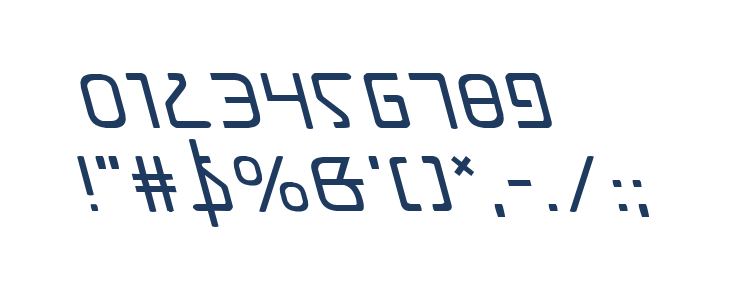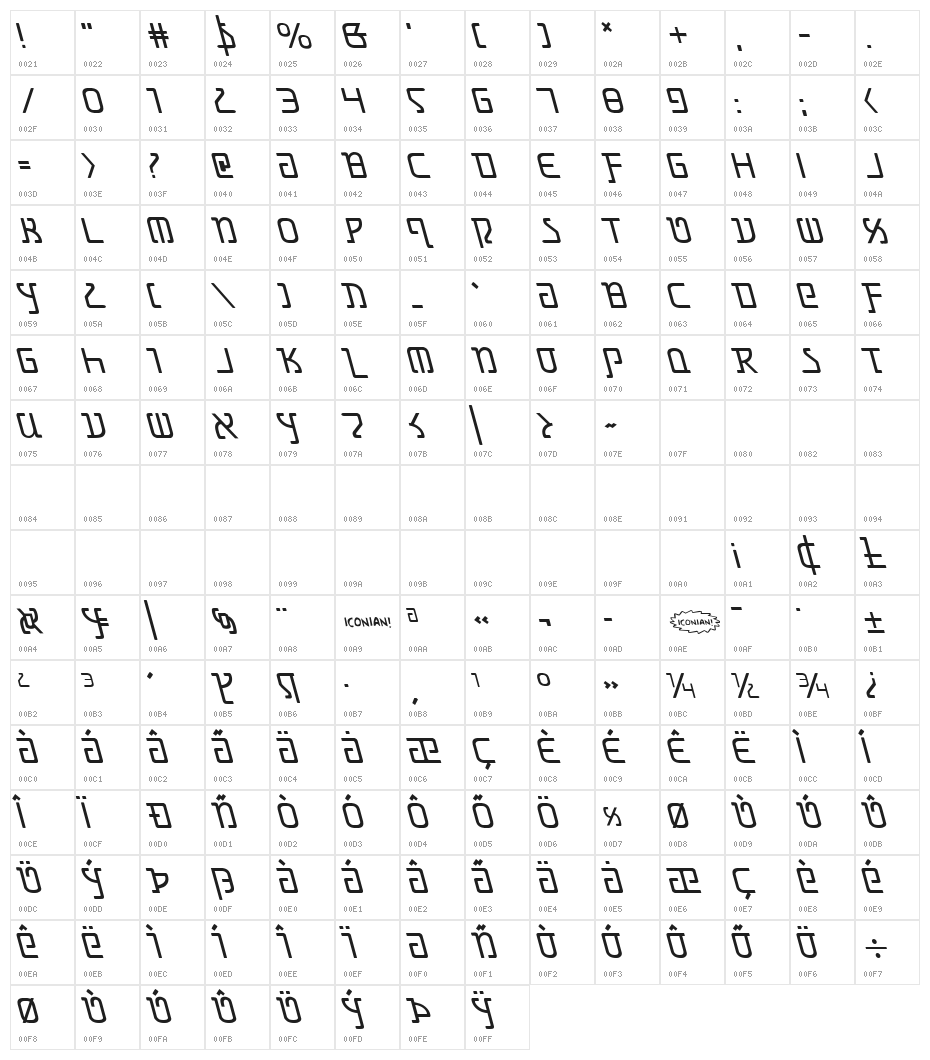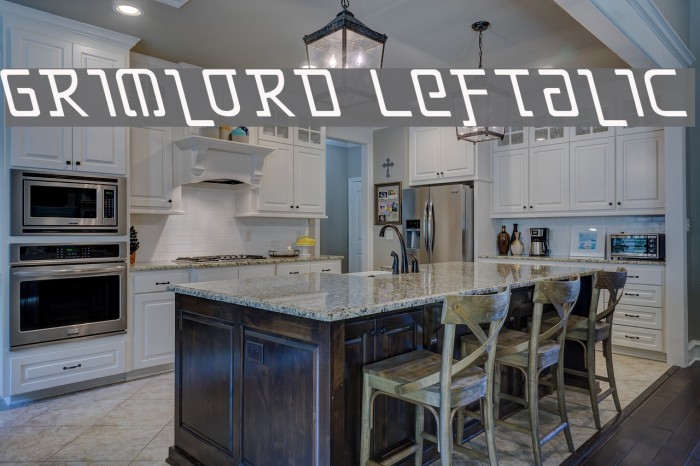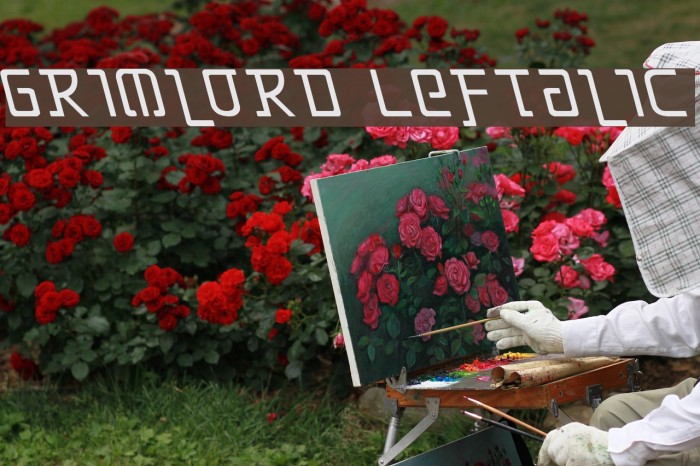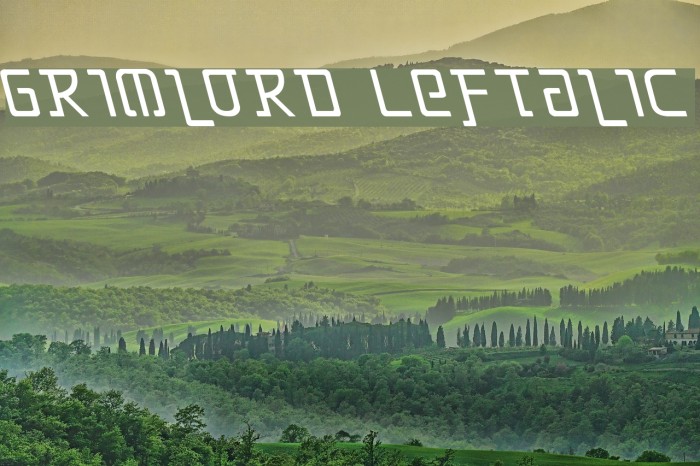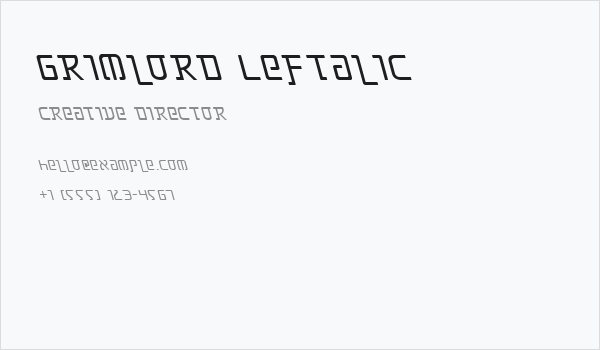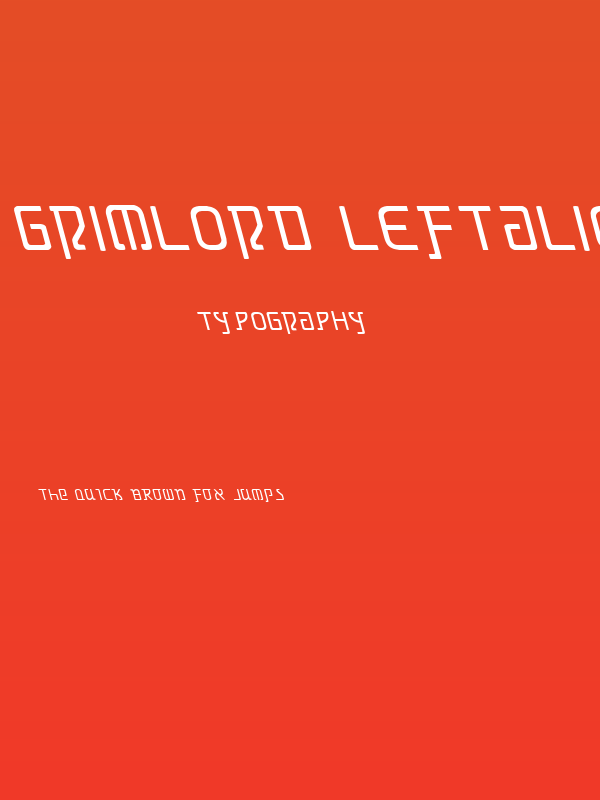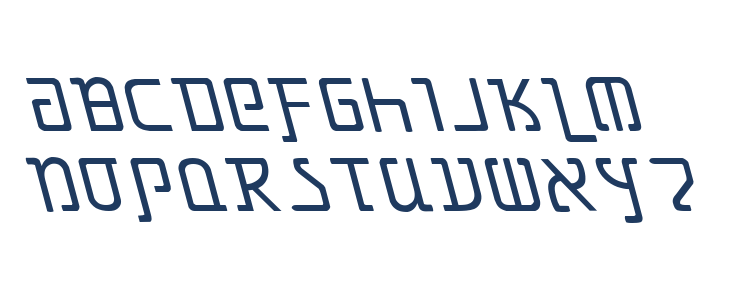
Grimlord Leftalic Font
Grimlord Leftalic Description
This font features a futuristic and angular design, characterized by its geometric shapes and sharp edges. The letters are slightly slanted, giving a dynamic and forward-moving appearance. The uppercase and lowercase letters share a consistent style, with unique cuts and angles that create a sense of motion and modernity. The numbers and special characters maintain this aesthetic, ensuring a cohesive look across all glyphs. The font's bold strokes and distinct shapes make it highly legible, even at smaller sizes, while its unique style ensures it stands out in any design.
Proposed ProjectsIdeal for sci-fi themed projects, technology branding, video game titles, and modern posters.